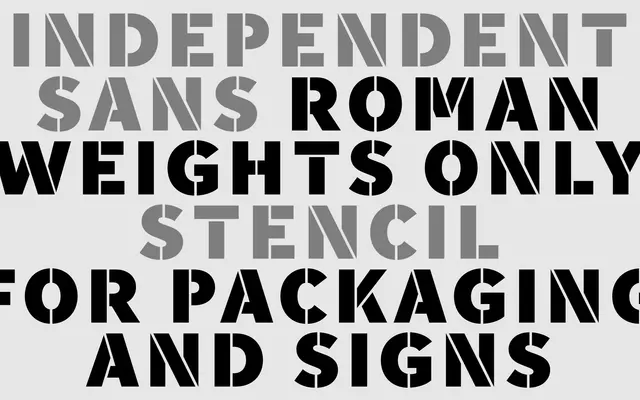
Independent Sans Stencil
A2-Type · 2013
Independent Sans Stencil specimen from A2-Type
A stencil cut of the Independent newspaper's sans-serif family, sharing the same proportions as the broader Independent type system designed in 2013.
Part of a large type system originally commissioned for The Independent newspaper's print and digital editions, this stencil variant extends the family into more expressive display territory. Five weights run from Light to Black, each carrying the interrupted stroke pattern typical of stencil design while remaining structurally consistent with the companion sans. The broader Independent family received a D&AD Yellow Pencil in 2014 and the Typeface Design prize at the Tokyo TDC in 2015.
A stencil variant of a humanist sans designed for newspaper use; the stencil cuts create interrupted strokes while retaining the proportions of the underlying sans family.